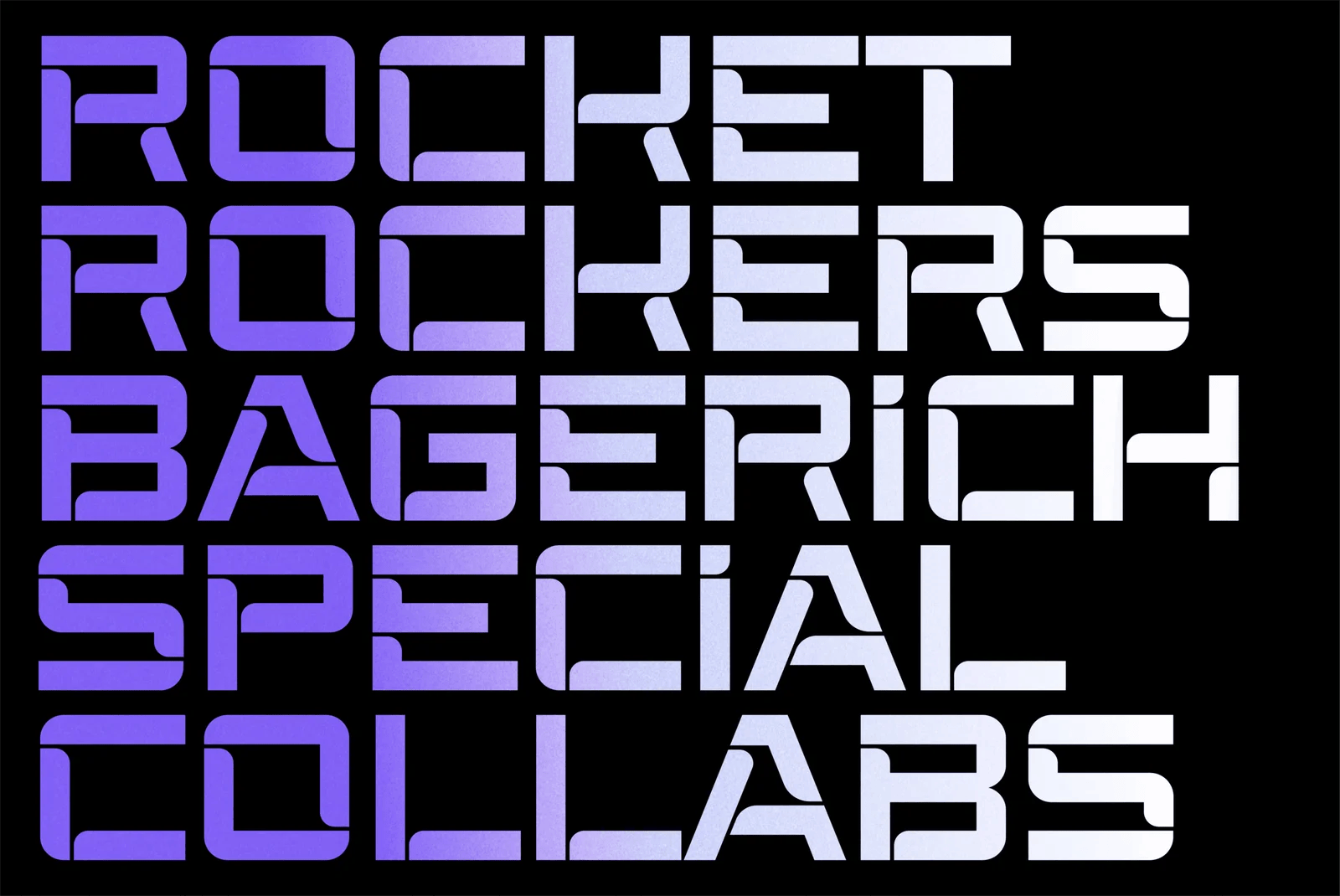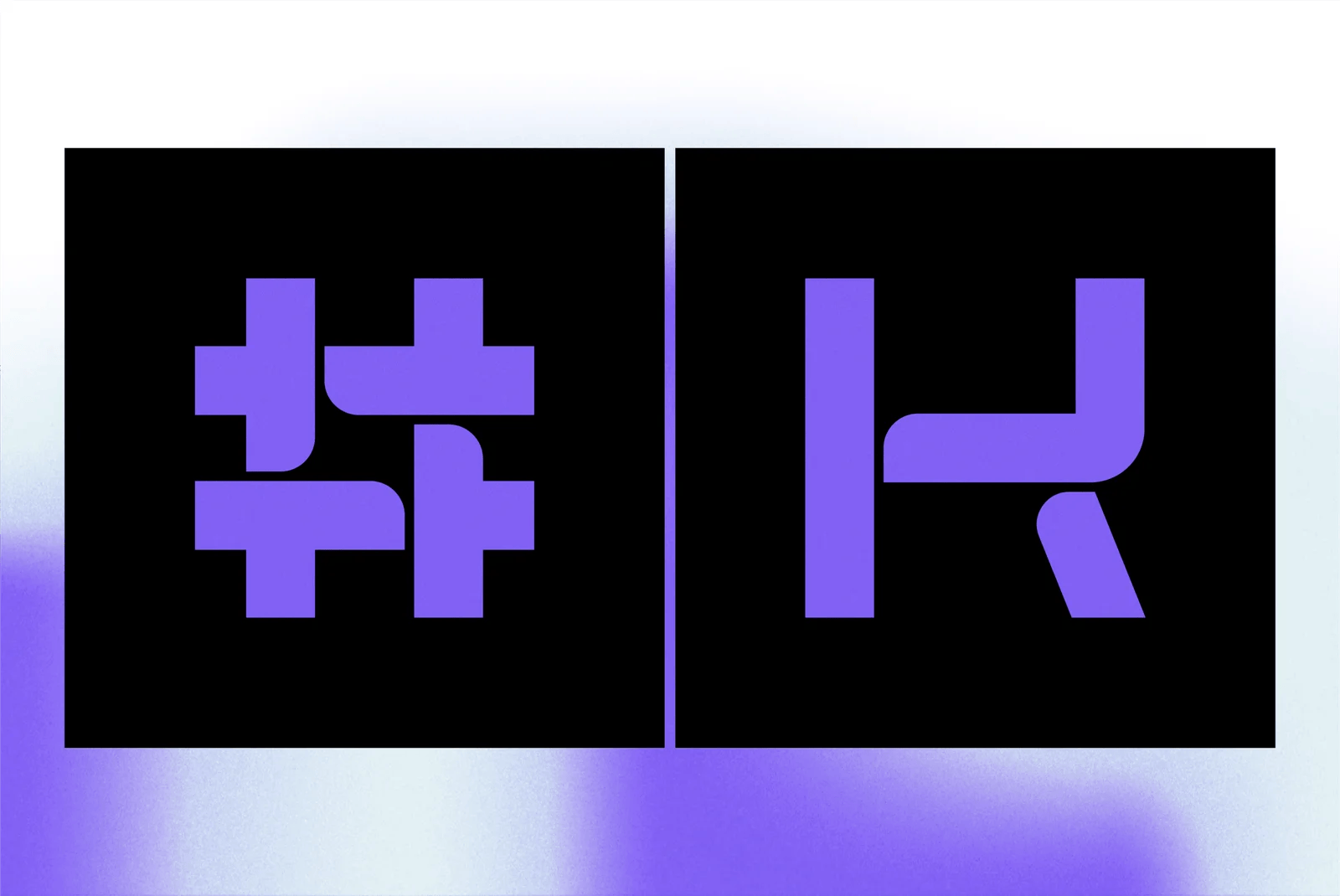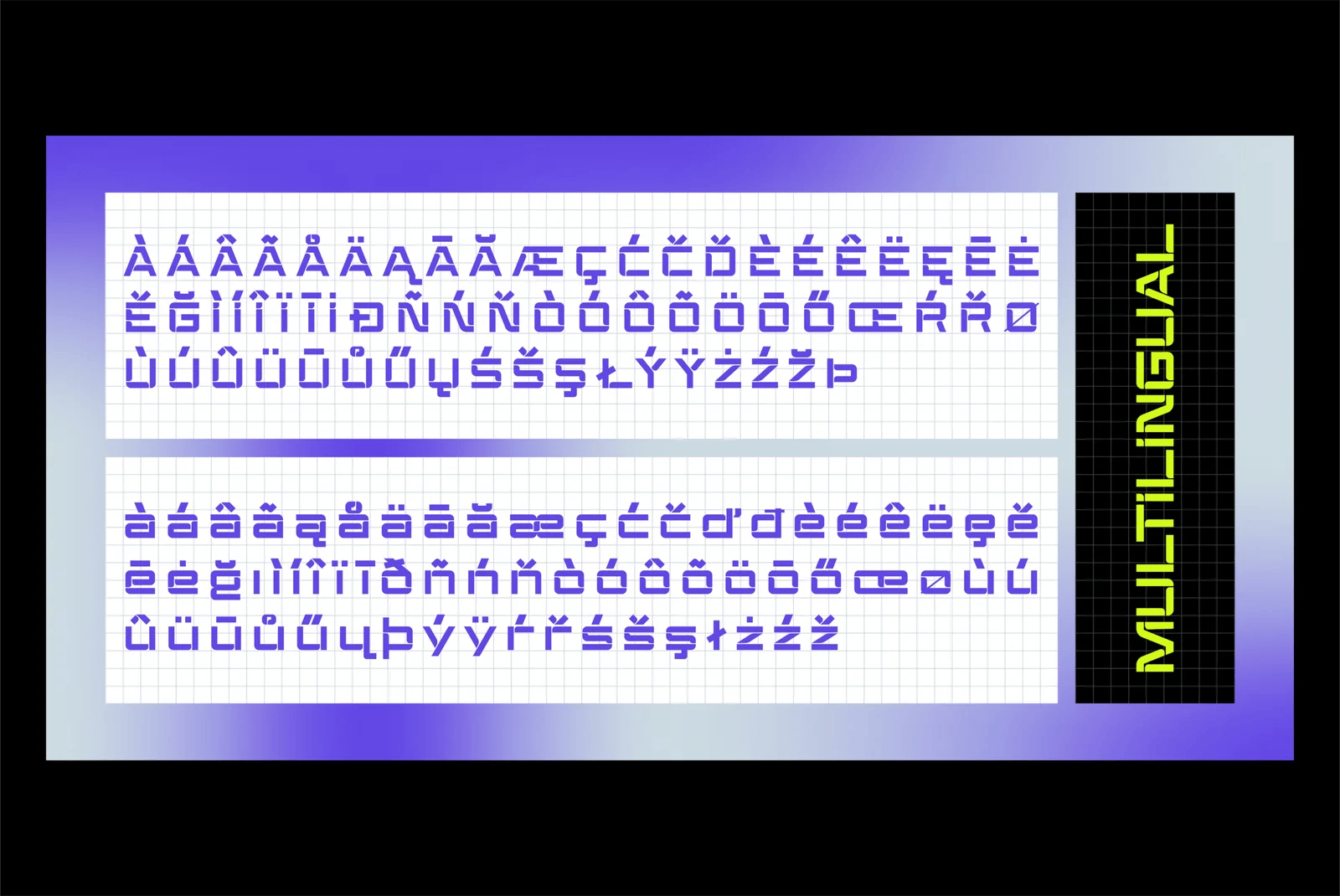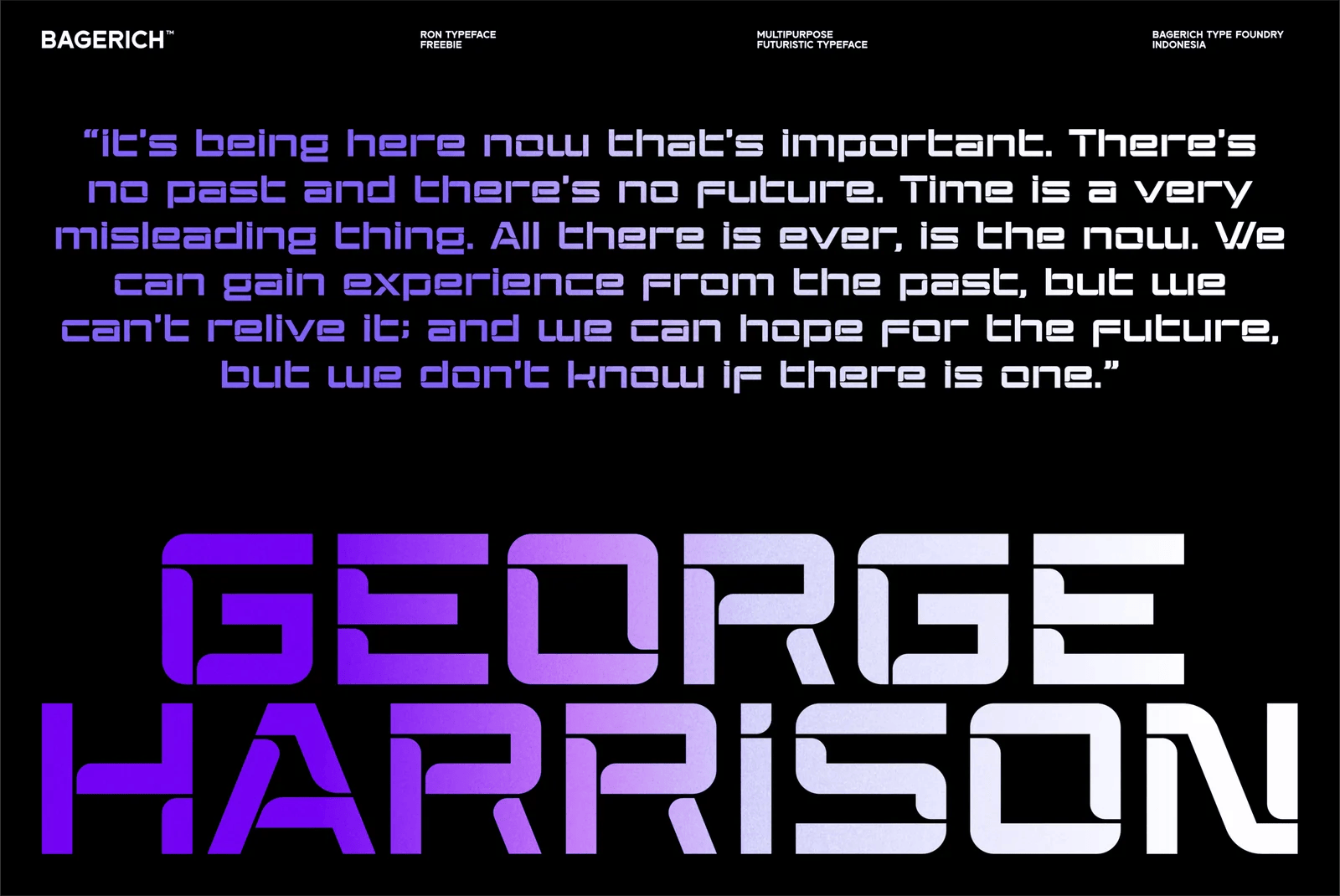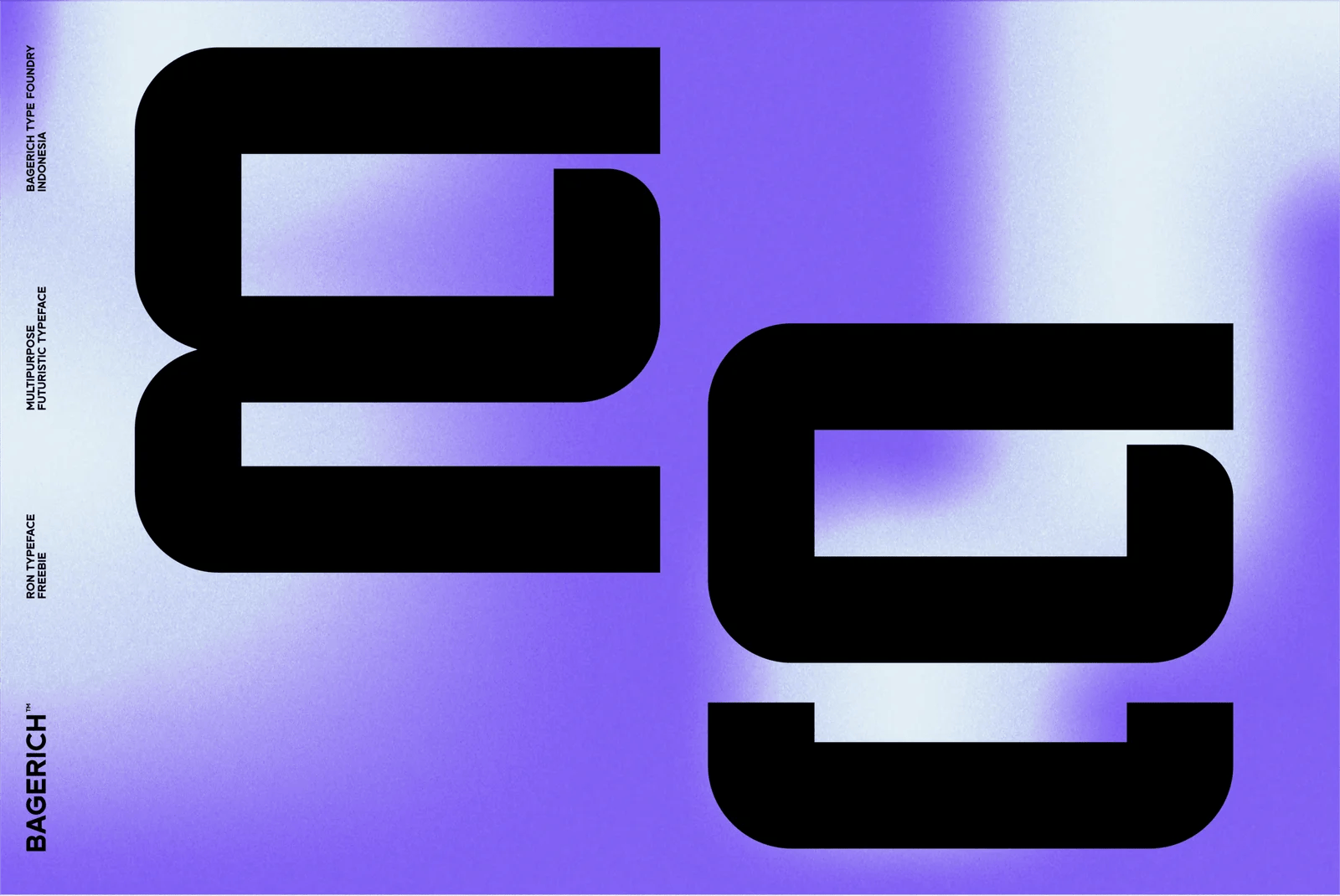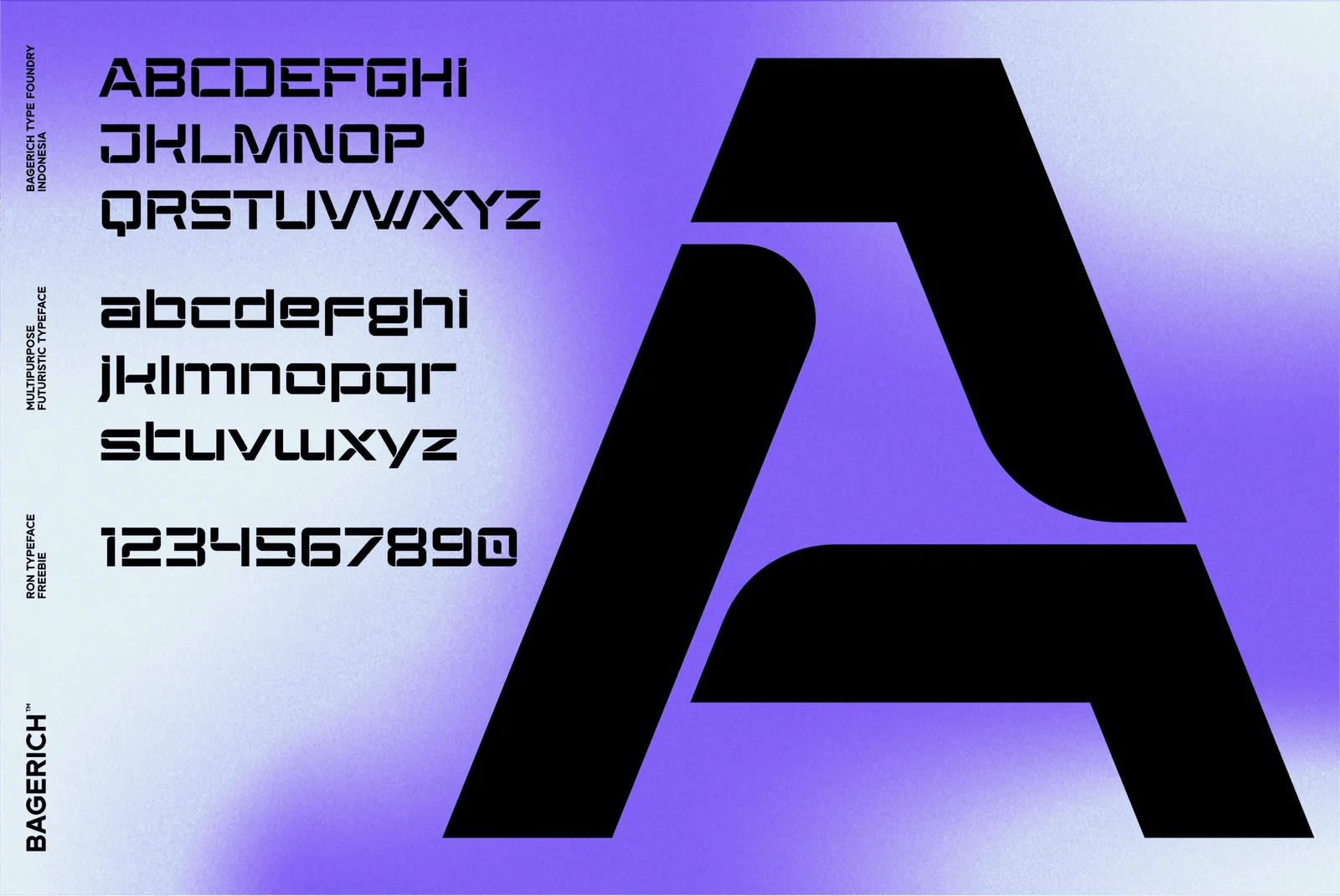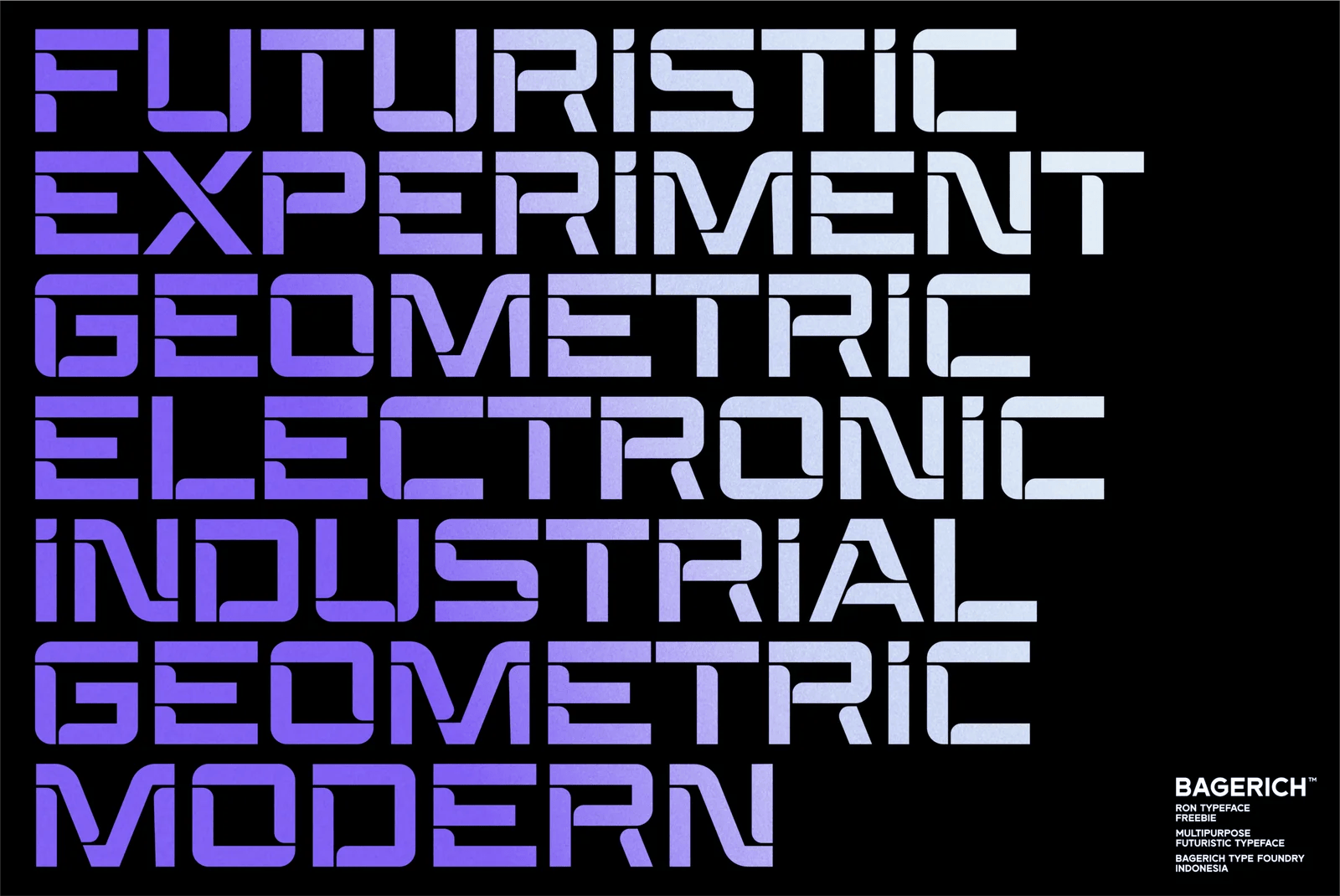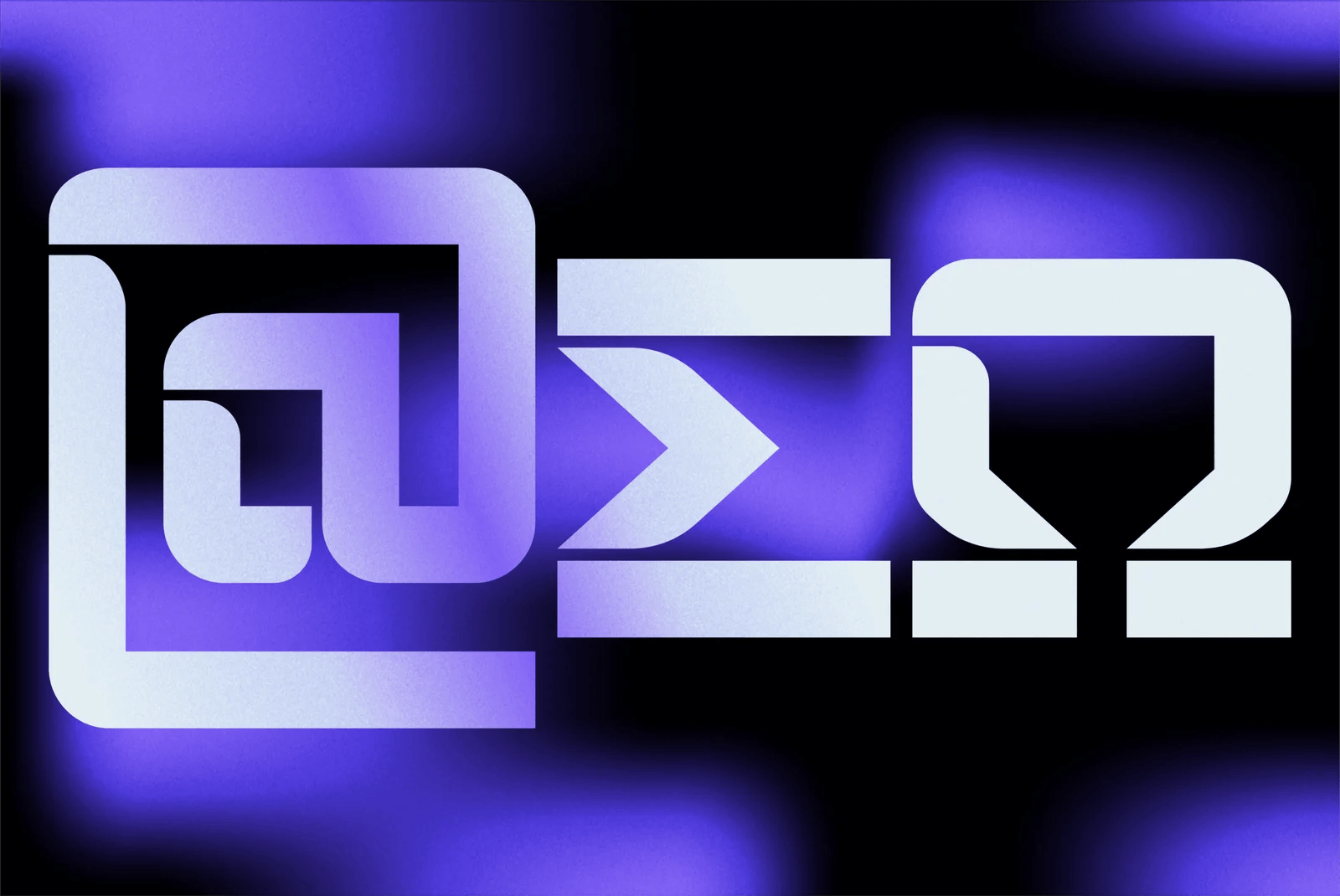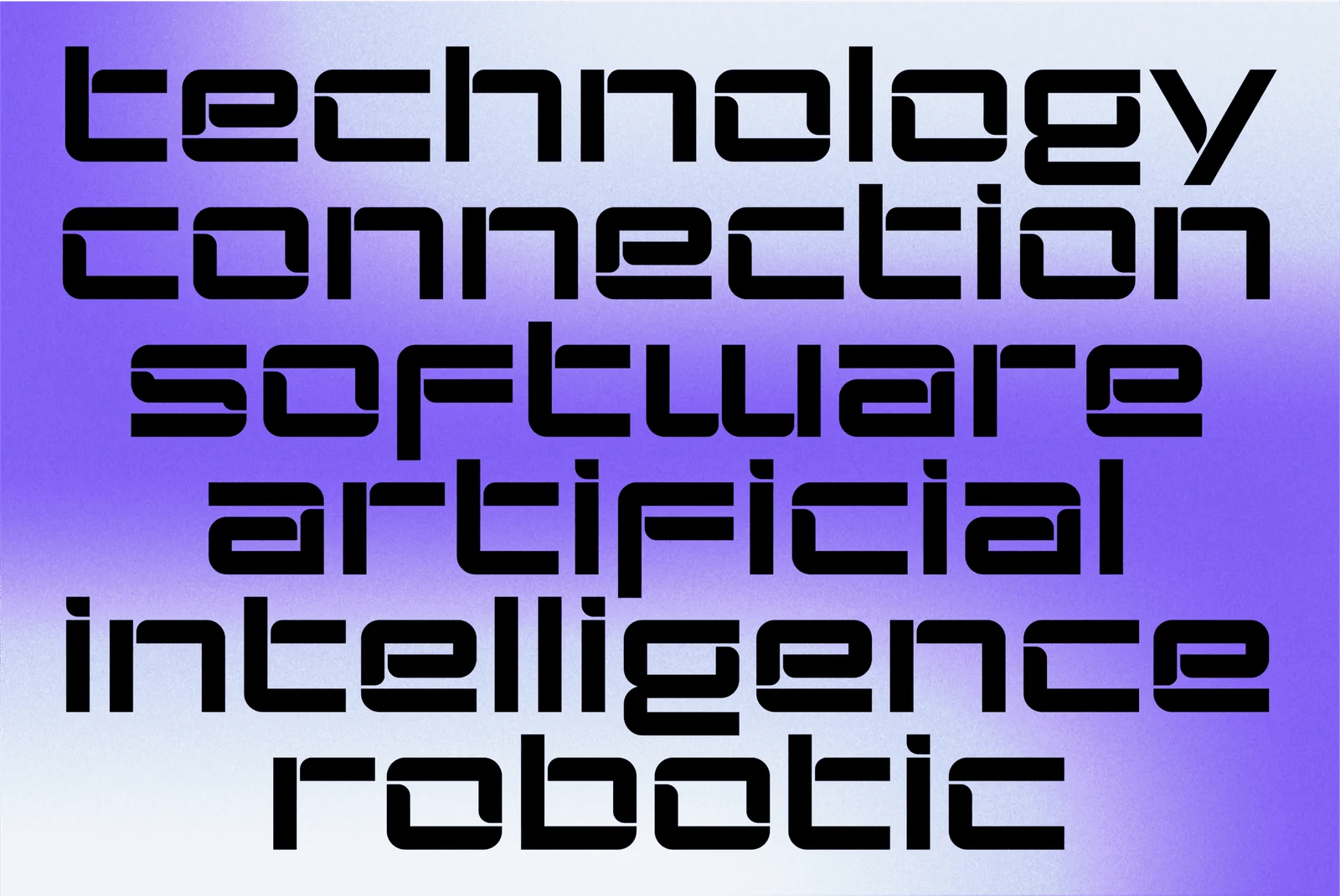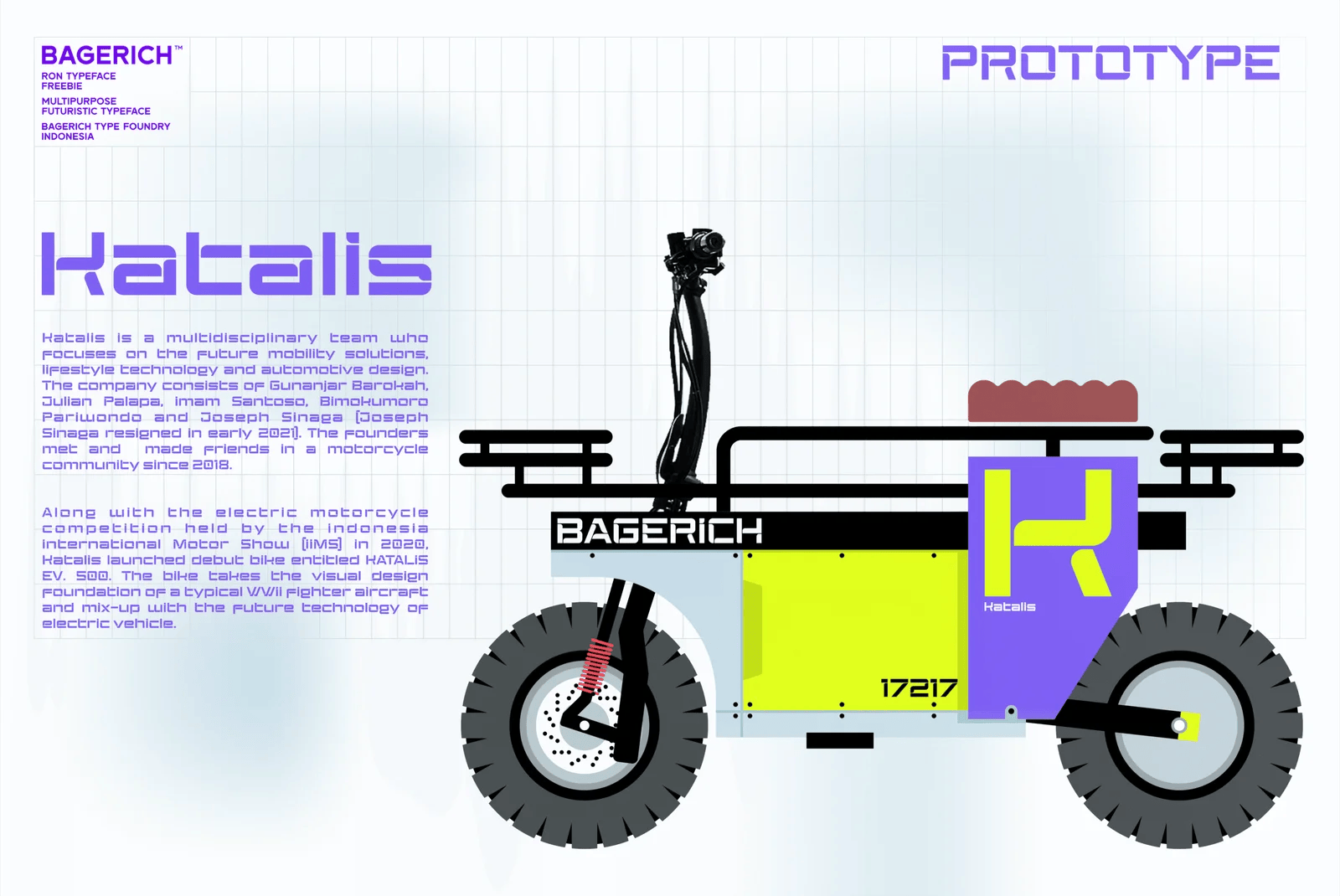
RON is futuristic modern font that Inspired by electric vehicles, features upper & lowercase characters, multilingual, numbers & punctuation. It’s well suited for use in the tech & gaming space for logos, titles, packaging, web design, apps & much more. RON is 100% free for personal and commercial use
RON
by bagerich